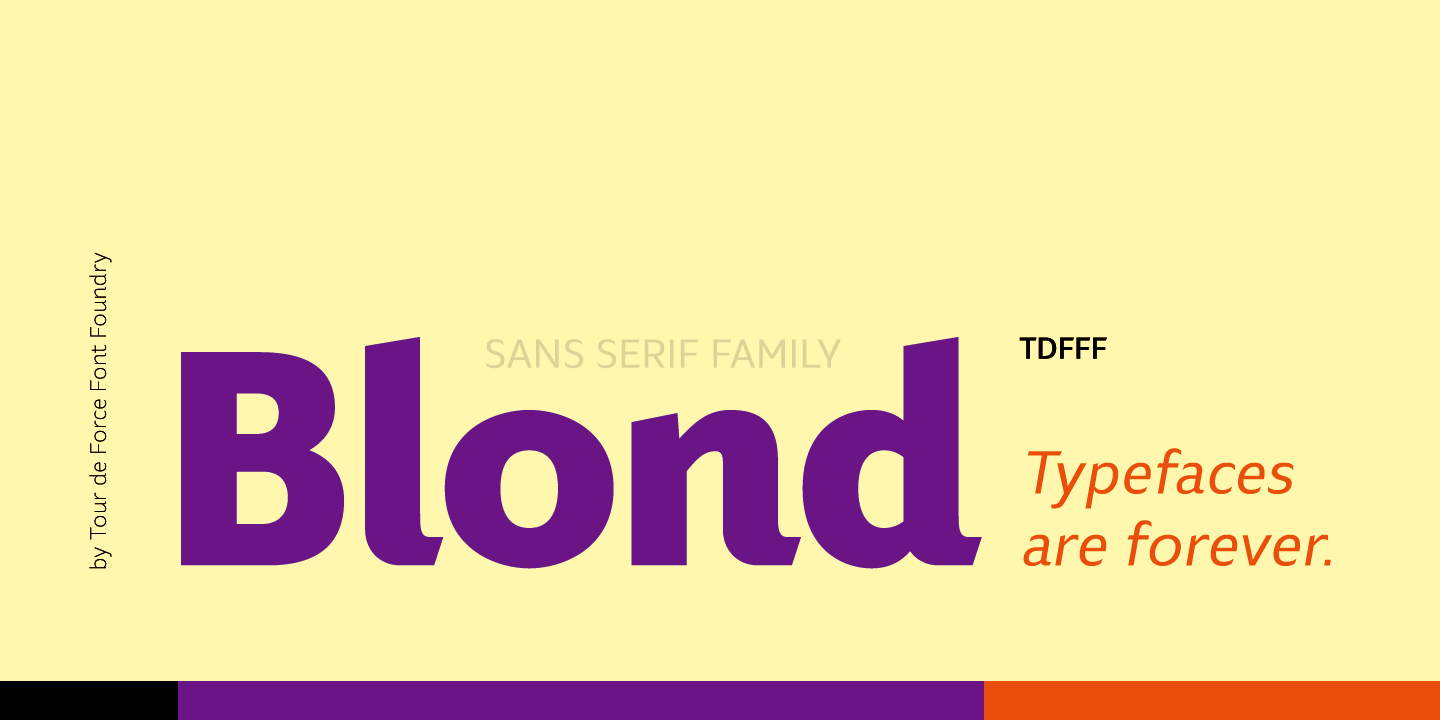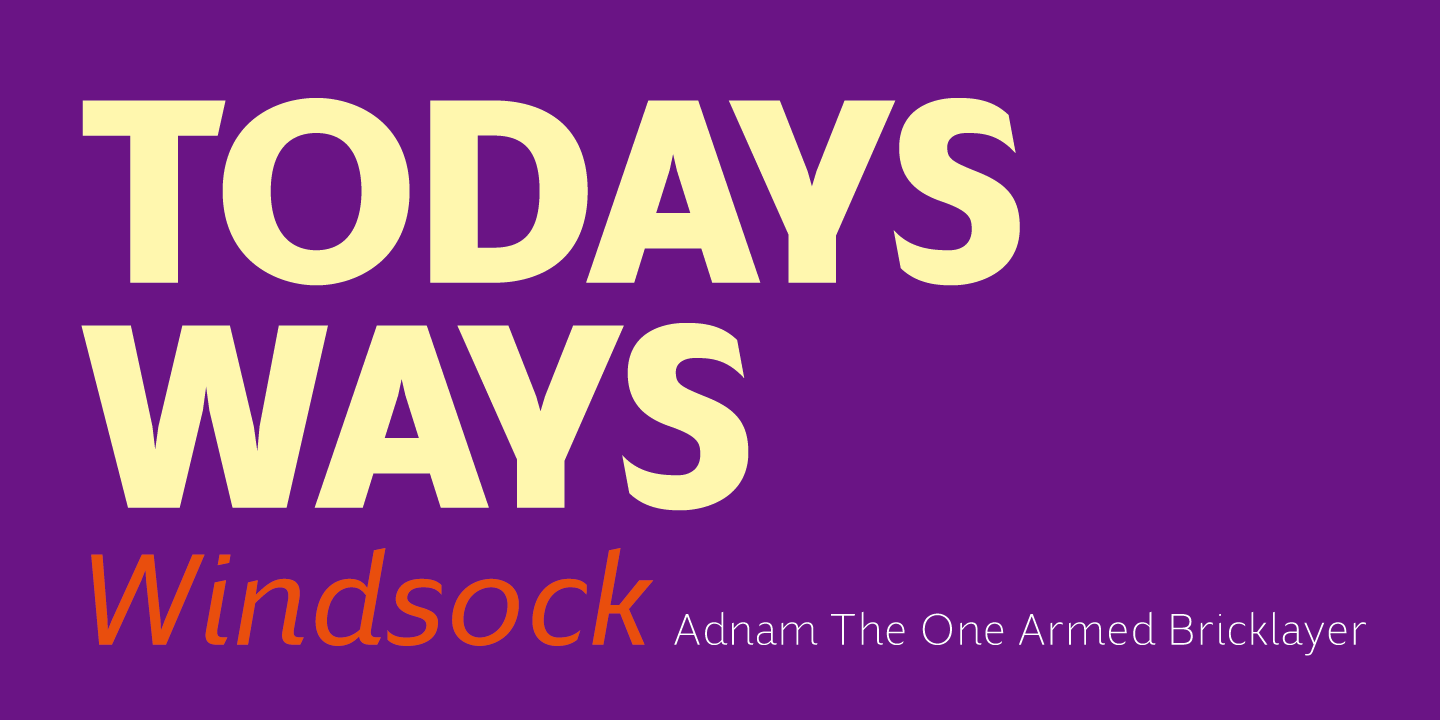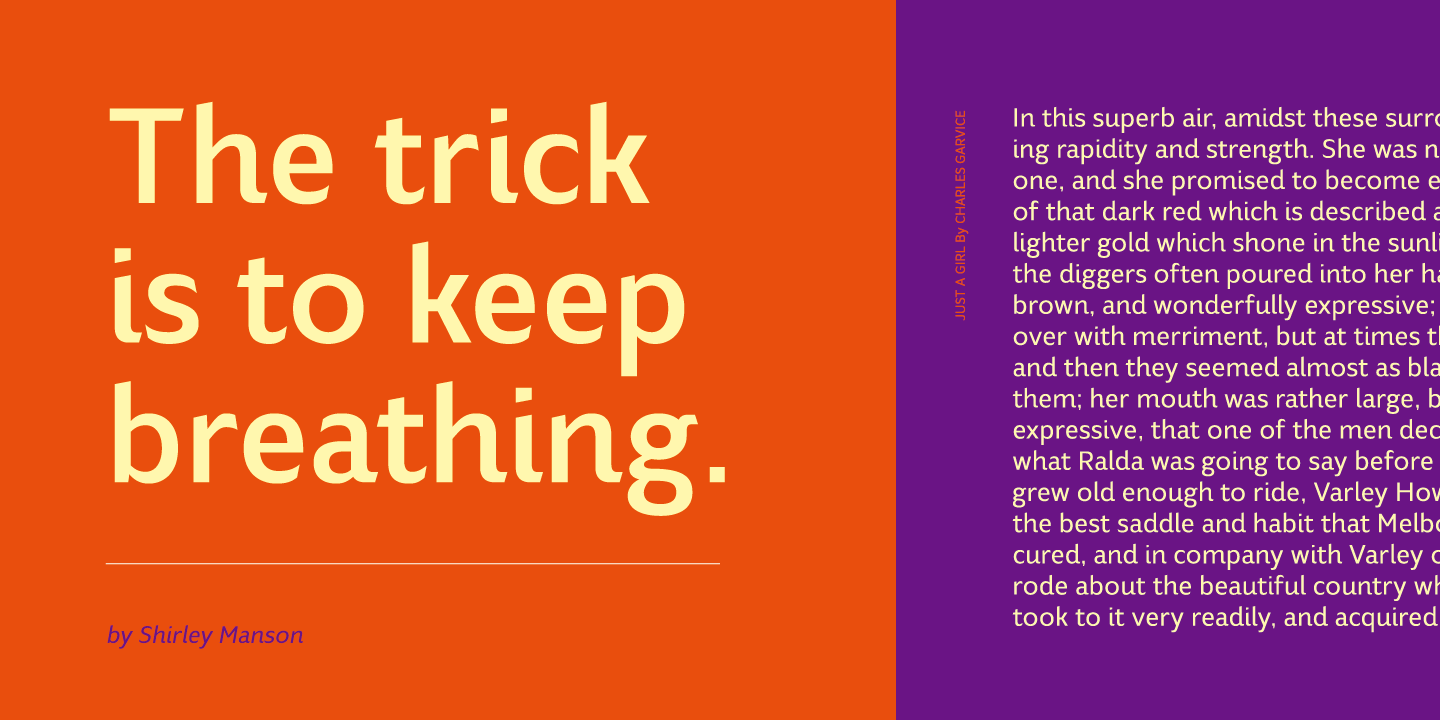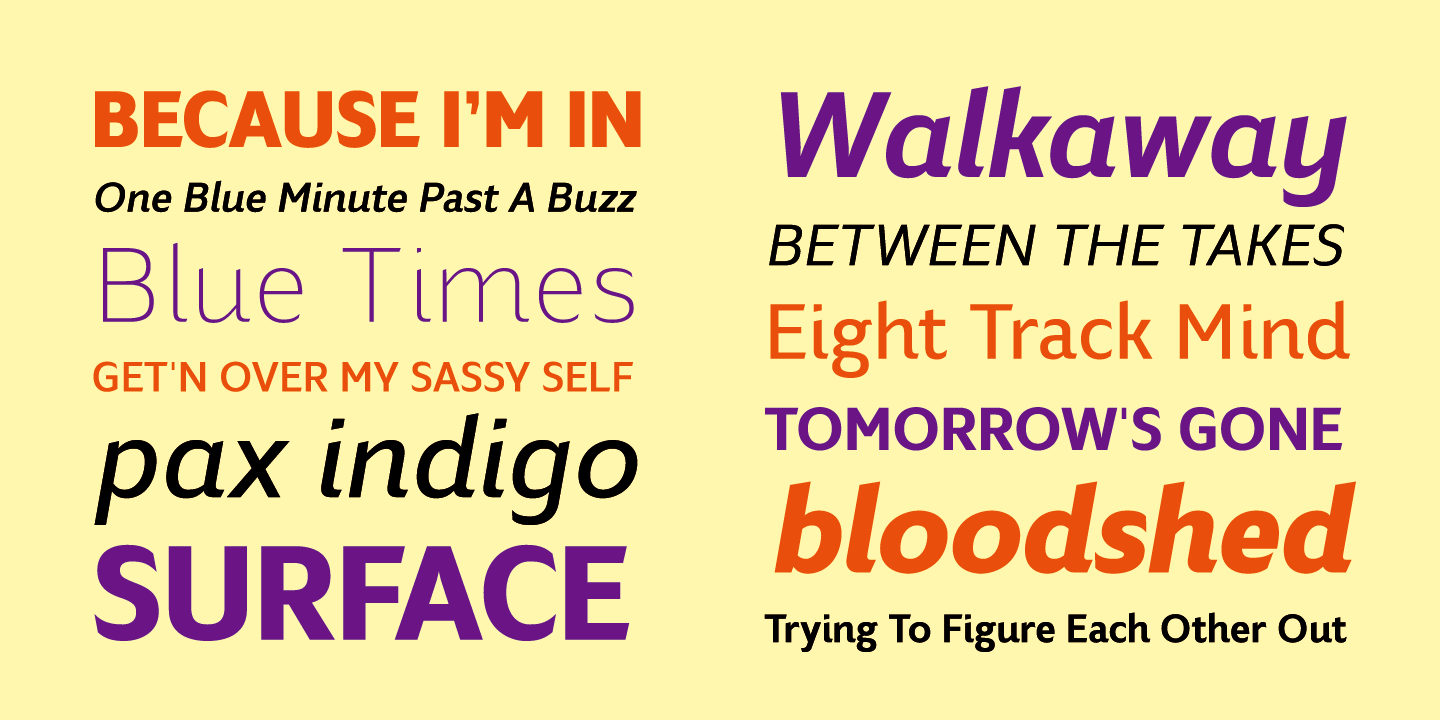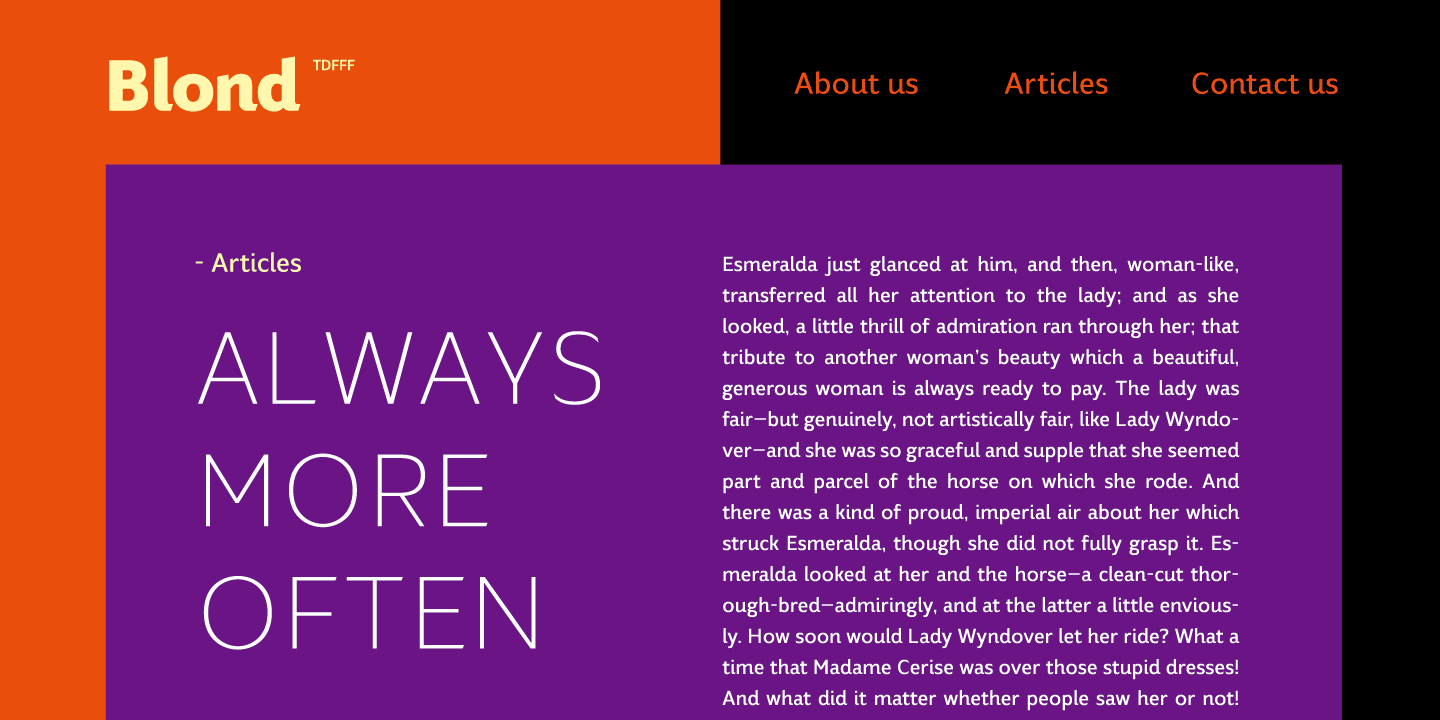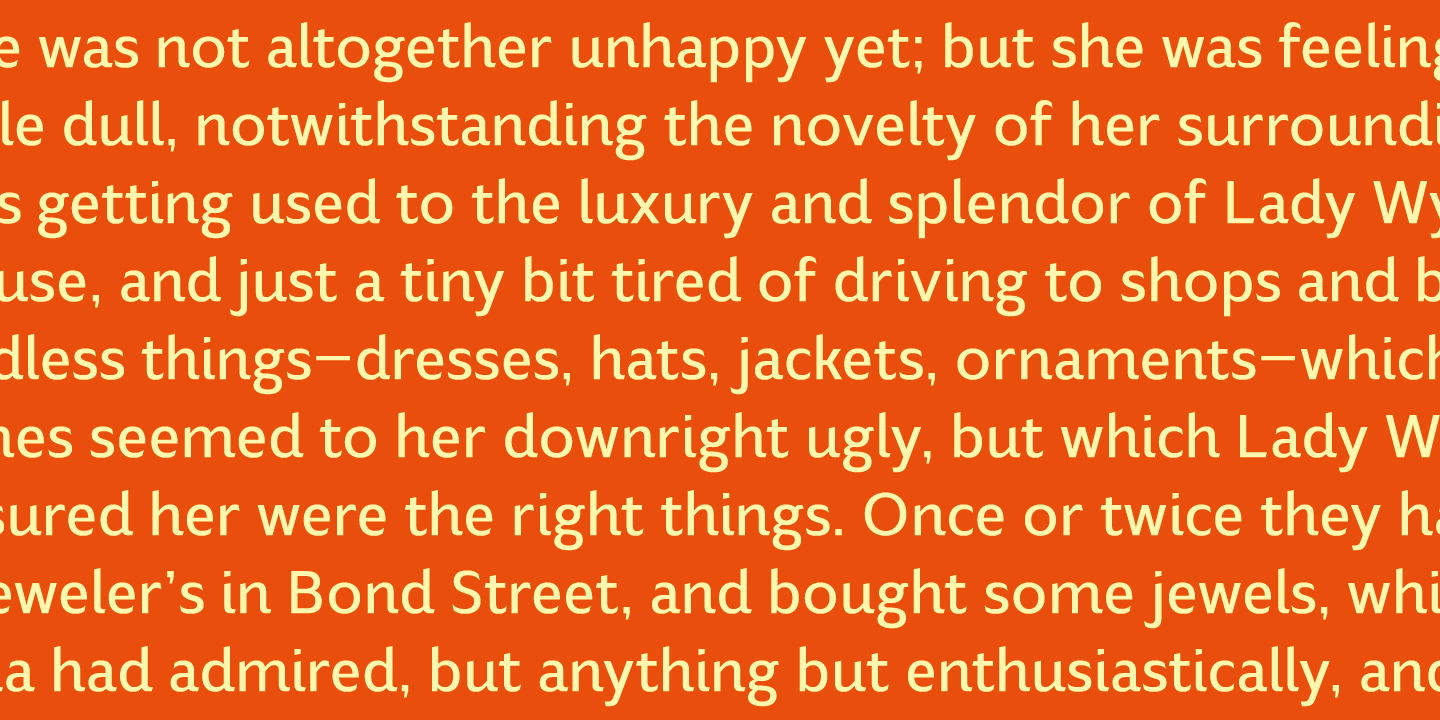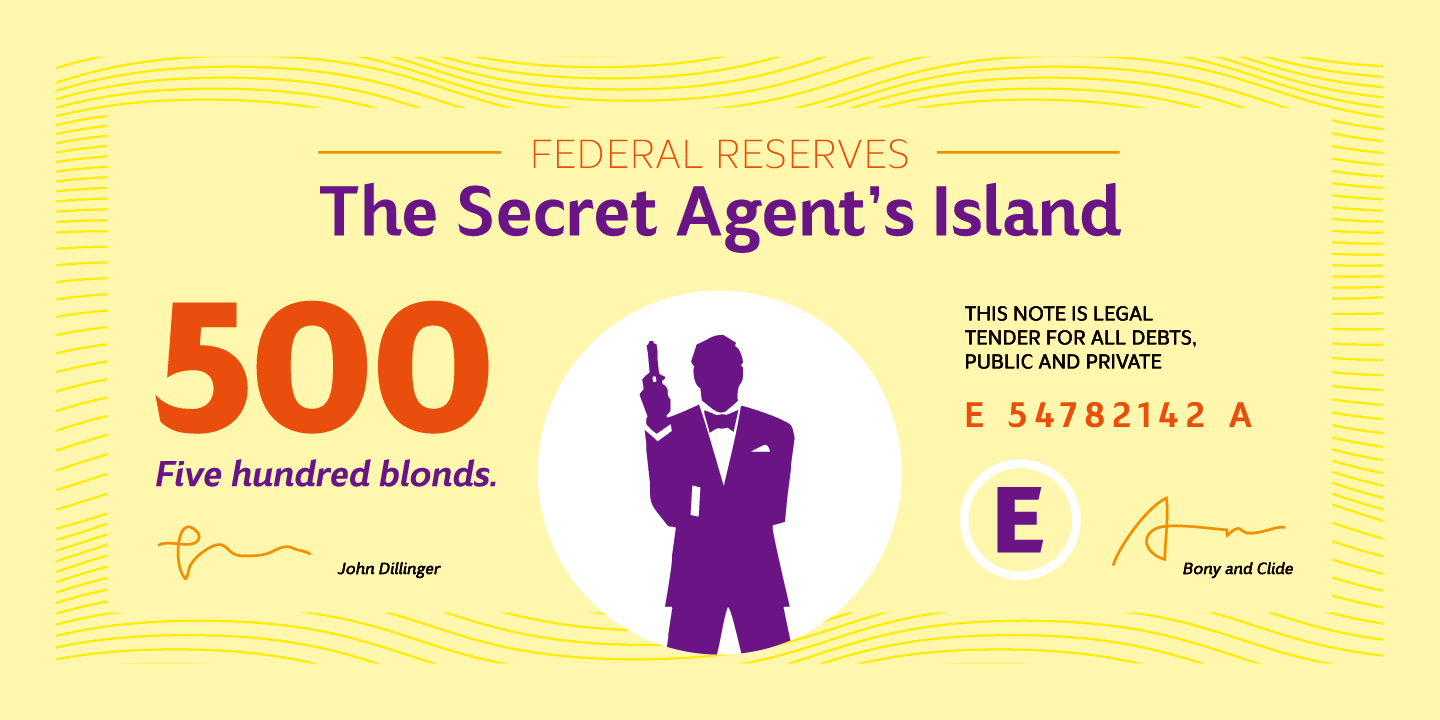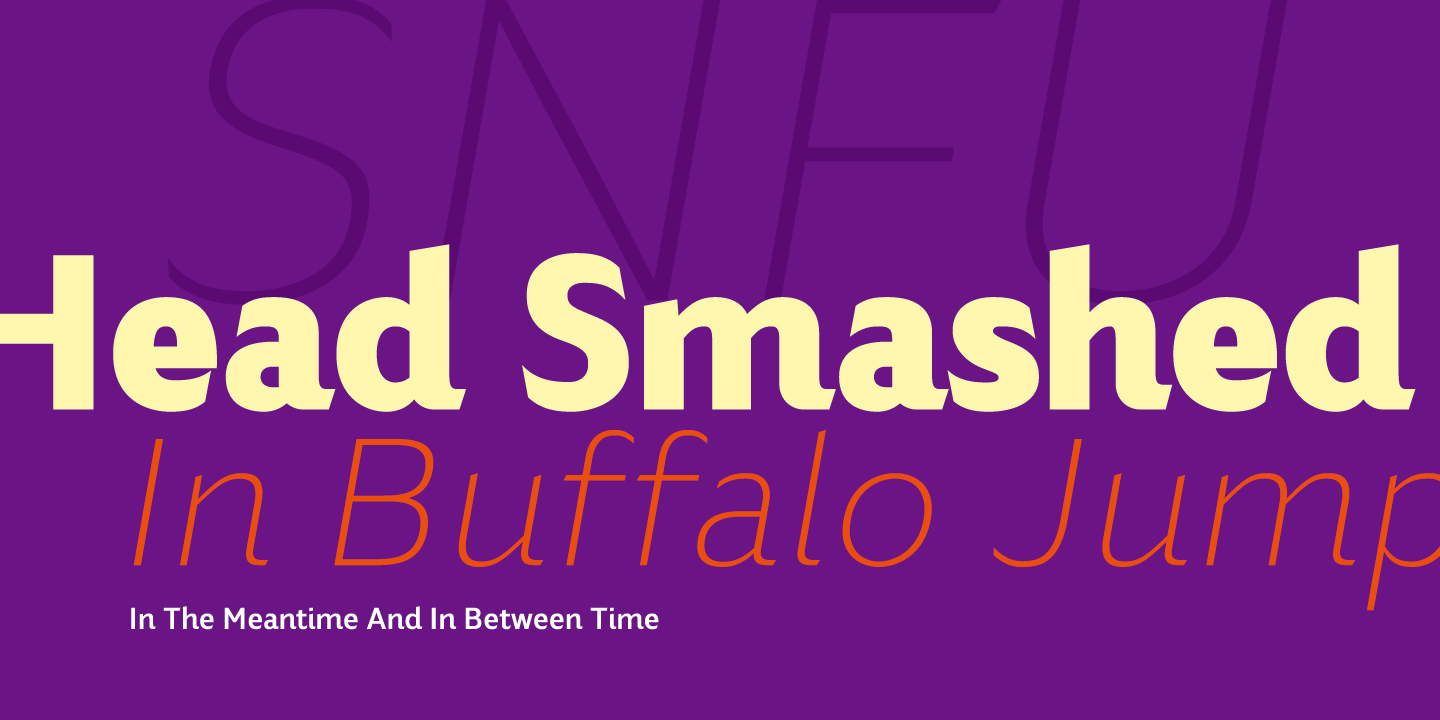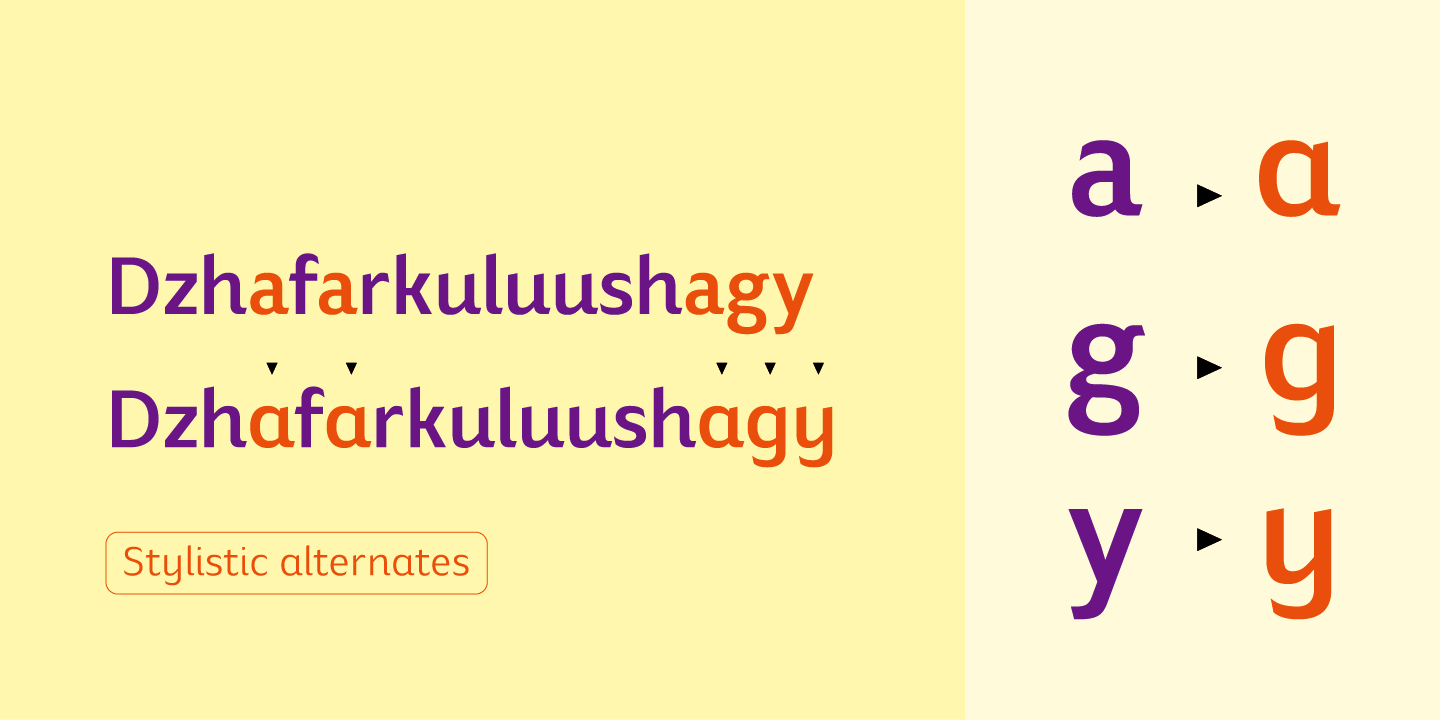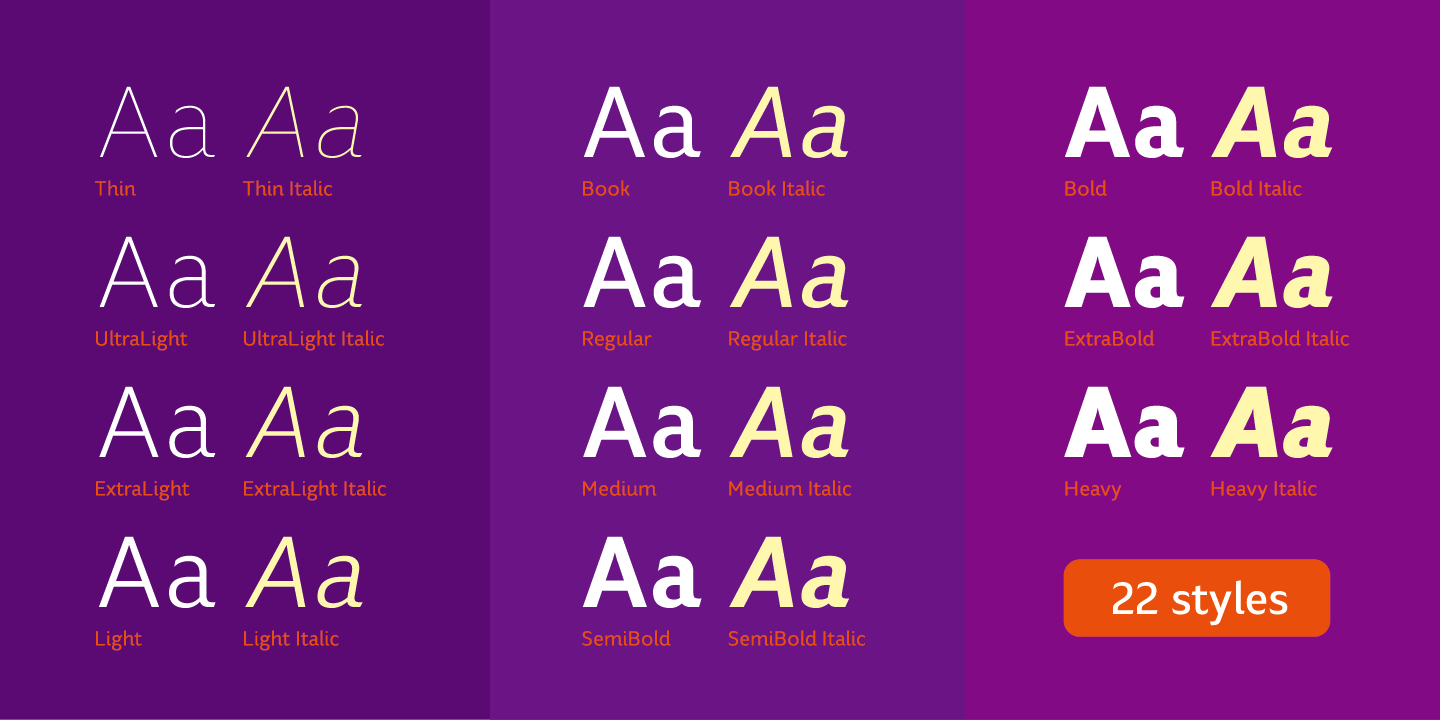
Blond is modern sans serif family with 22 members - 11 weights from Thin to Heavy with matching Italics. Distinctive, recognizable and uniform, Blonde family is well balanced typeface that will find appliance in any situation - from editorial design to web design. Contains extended Latin character map and small Stylistic set.